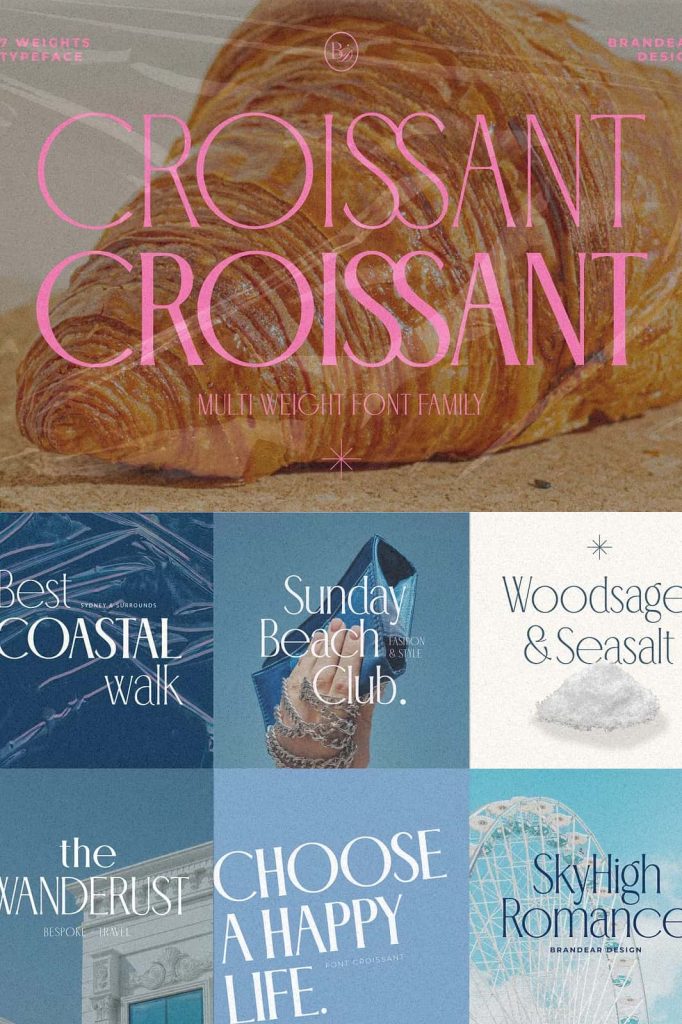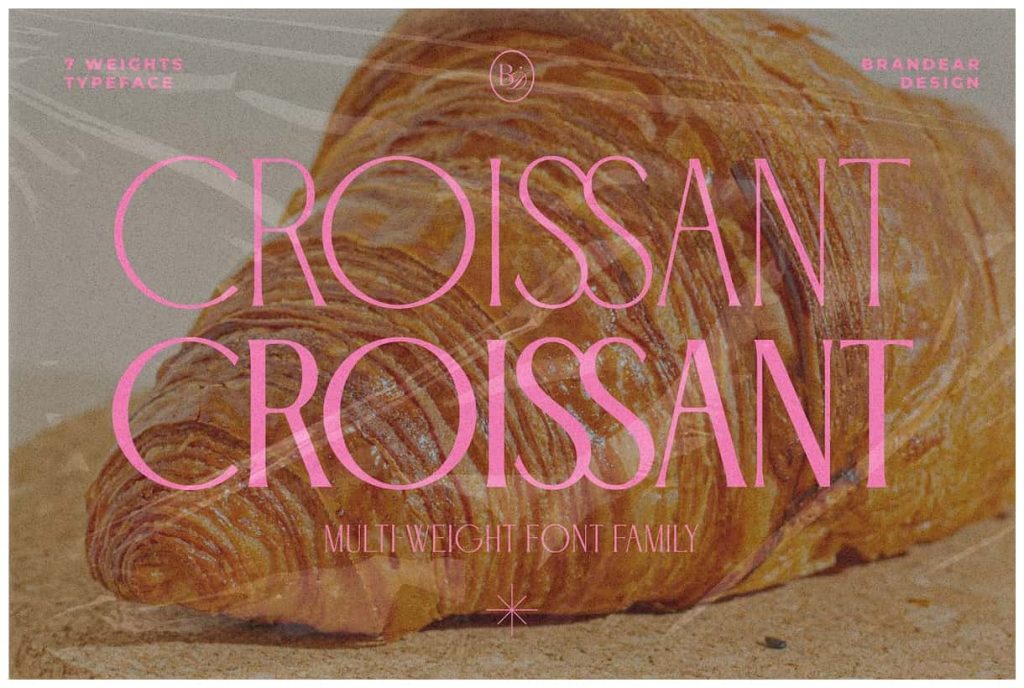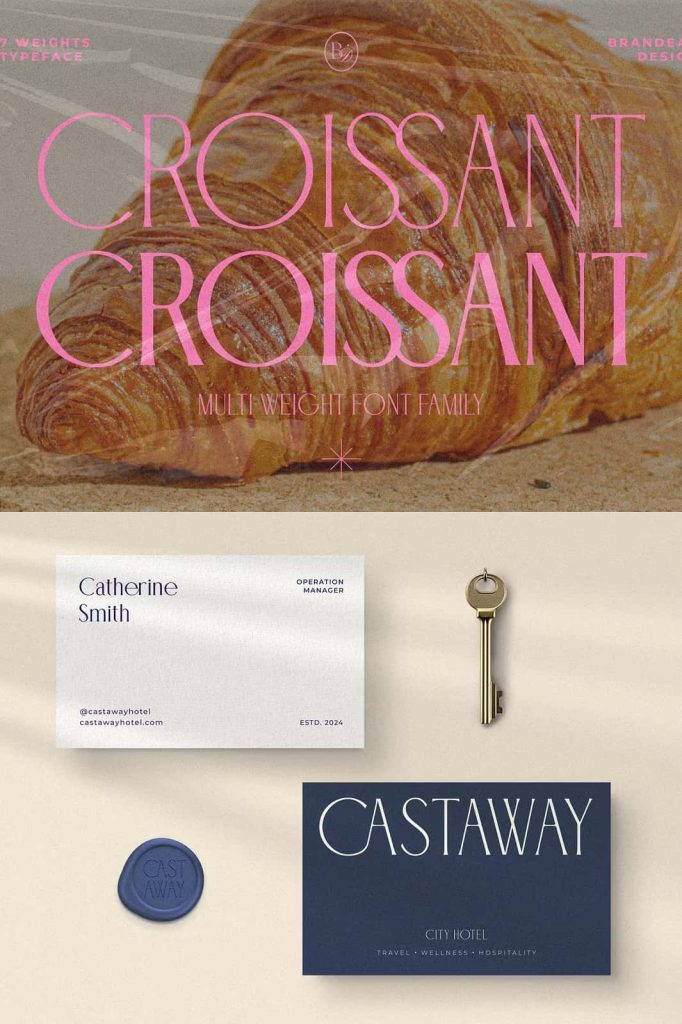
Introducing Croissant – a sophisticated serif font that embodies calm elegance. Crafted with meticulous attention to detail, Croissant features a multi-weight design with 7 beautiful variations.